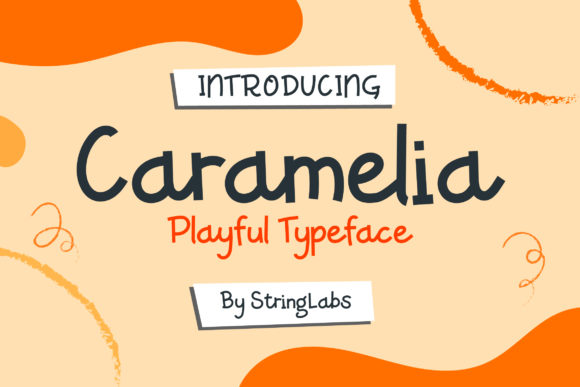
The Caramelia Font: A Sweet Addition to Your Design Toolbox
I’ll never forget the time I was working on a project for a children’s book, and I just couldn’t find the right font. The client wanted something playful, modern, and easy to read. I scoured the internet, tried out dozens of fonts, but nothing seemed quite right. That was until I stumbled upon Caramelia. This delightful font has been a game-changer for me, and I’m excited to share its charms with you.
An Honest Review of Caramelia
- ✨ **Unique and modern look**: Caramelia has a fresh, contemporary feel that’s perfect for designs that need a bit of whimsy.
- ✅ **Light and airy**: The font’s light weight makes it easy to read, even at smaller sizes.
- 🎉 **Playful vibe**: Caramelia’s playful personality is perfect for designs aimed at kids or for adding a touch of fun to any project.
While Caramelia is an excellent font, it’s not without its quirks. For example:
- 🤔 **Limited use in formal designs**: Caramelia’s playful nature makes it less suitable for formal or professional designs.
- ⚠️ **Some letters may appear too similar**: A few letters, like “i” and “l”, can be easily confused due to their similar shapes.
One of the best things about Caramelia is its support for OpenType features. These features allow you to customize your text with:
- Ligatures: Combine letters for a more fluid look.
- Stylistic alternates: Swap out letters for alternative designs.
- Glyphs: Access special characters and symbols to add visual interest.
The Story Behind Caramelia
Caramelia was designed with one goal in mind: to create a font that’s both playful and modern. The designer, inspired by the sweetness of caramel, set out to craft a font that’s as delightful as it is functional. With its unique look and light appeal, Caramelia has quickly become a favorite among designers and crafters.
Q: What type of projects is Caramelia best suited for?
A: Caramelia is perfect for designs that need a playful, modern touch, such as children’s books, crafts, and creative projects.
Q: Does Caramelia support OpenType features?
A: Yes, Caramelia supports OpenType features, including ligatures, stylistic alternates, and glyphs.